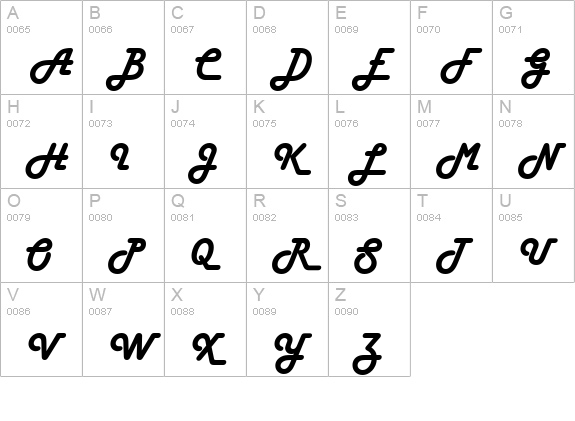
Harlow Solid Plain Font Details
Harlow Solid Plain font is a visually captivating typeface that exudes elegance and sophistication. With its bold and solid letterforms, this font commands attention and leaves a lasting impression. Whether used for headlines, titles, or logos, Harlow Solid Plain adds a touch of glamour and professionalism to any design project. What makes Harlow Solid Plain even more remarkable is the fact that it is available for free. That's right, this stunning font can be downloaded without any cost at FontsMarket.com. This means that designers, creatives, and typography enthusiasts can effortlessly access this font and incorporate it into their work, without having to worry about breaking the bank. Created with precision and attention to detail, Harlow Solid Plain offers a seamless reading experience. Its clean lines and simplicity make it both legible and versatile, allowing it to be used across a range of applications. From print materials such as posters and brochures to digital platforms like websites and social media graphics, Harlow Solid Plain effortlessly adapts to any medium. Whether you're aiming for a modern and sleek look or a classic and timeless feel, Harlow Solid Plain has got you covered. Its versatility allows it to complement various design styles and themes, making it a go-to choice for designers looking to elevate their projects. So why wait? Embrace the beauty and sophistication of Harlow Solid Plain font and elevate your designs to new heights. Download it for free today at FontsMarket.com and discover the endless possibilities this font has to offer.